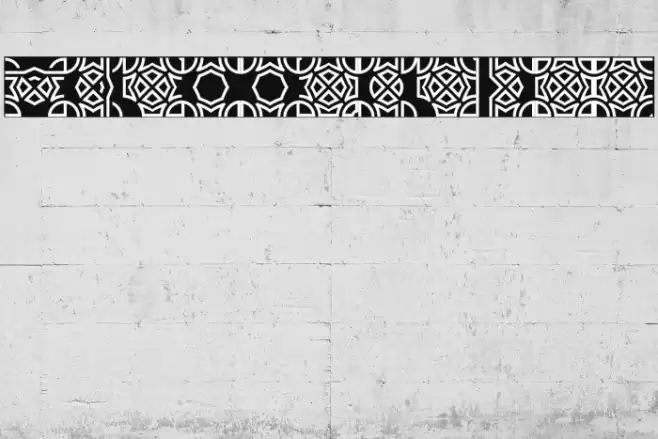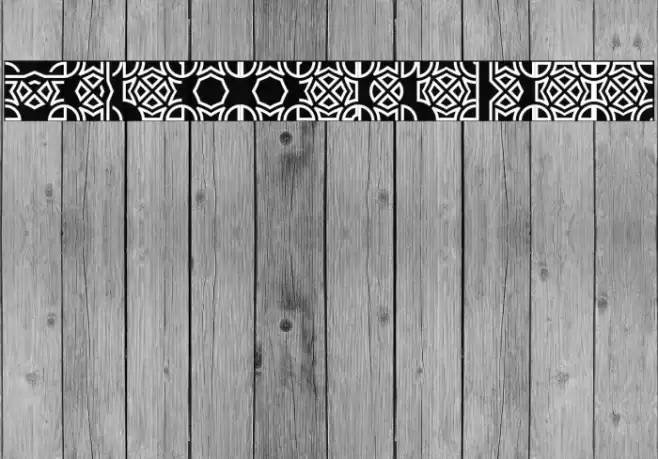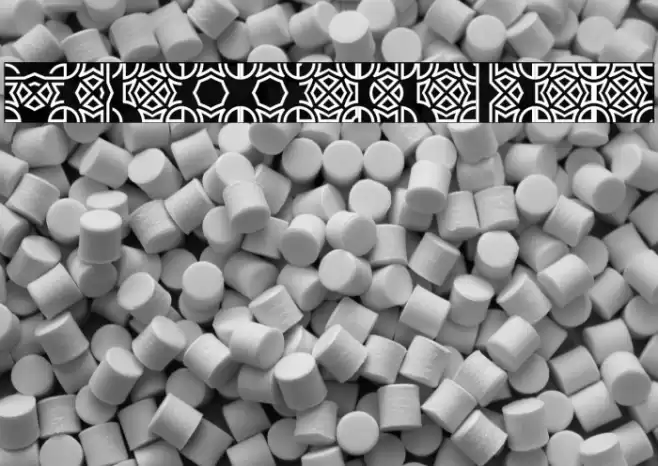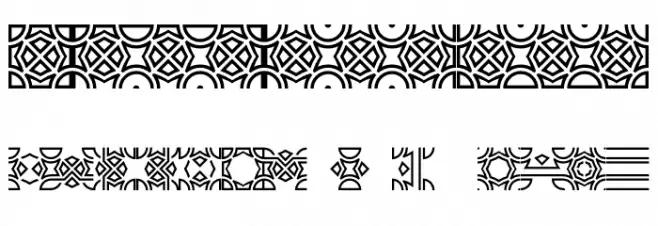
Opattfram01 Font
Opattfram01 Description
Highly decorative pattern-based design composed of geometric shapes and intricate line work, forming continuous ornamental borders rather than traditional letterforms or numerals.
Ornamental geometric border pattern with no readable characters from Uncategorized fonts.
- Proposed Projects: Decorative borders for invitations, certificates, packaging, or graphic design accents.
- Character Spacing: Tight
- Overall Style: Decorative, Ornamental
- Use Case: Borders, Frames, Decorative elements